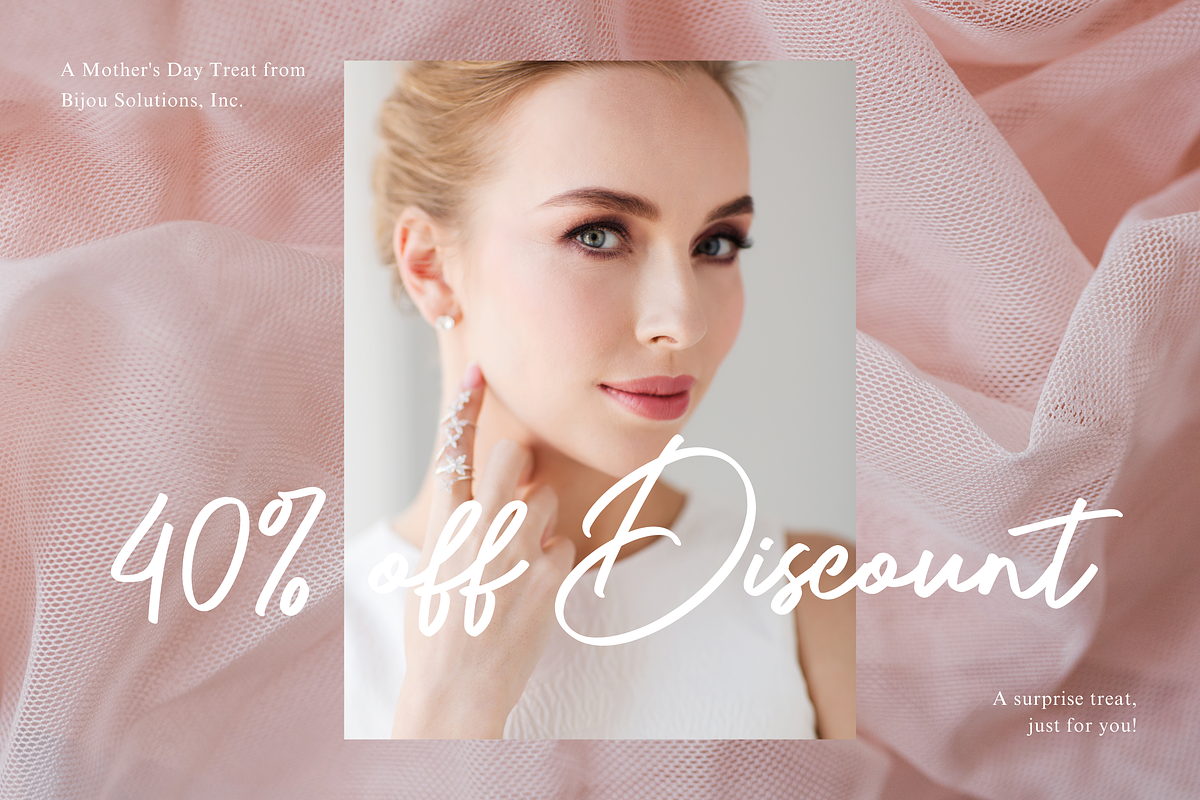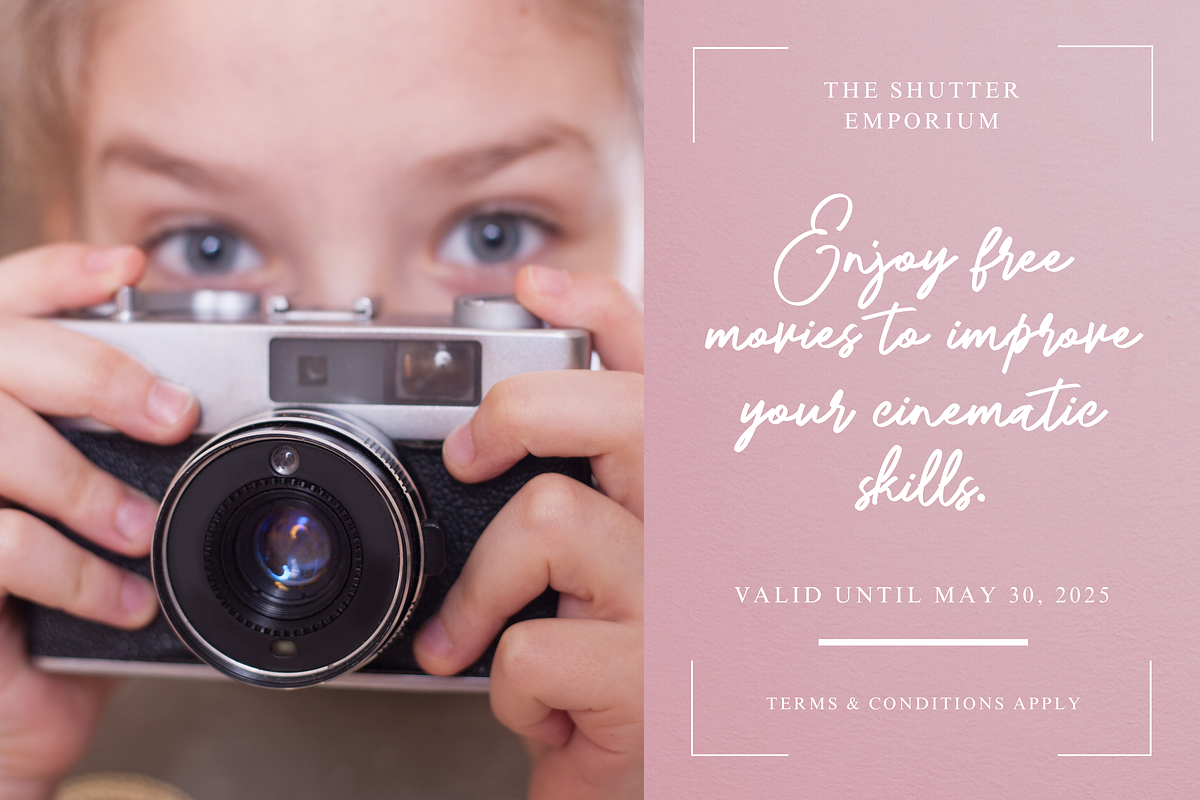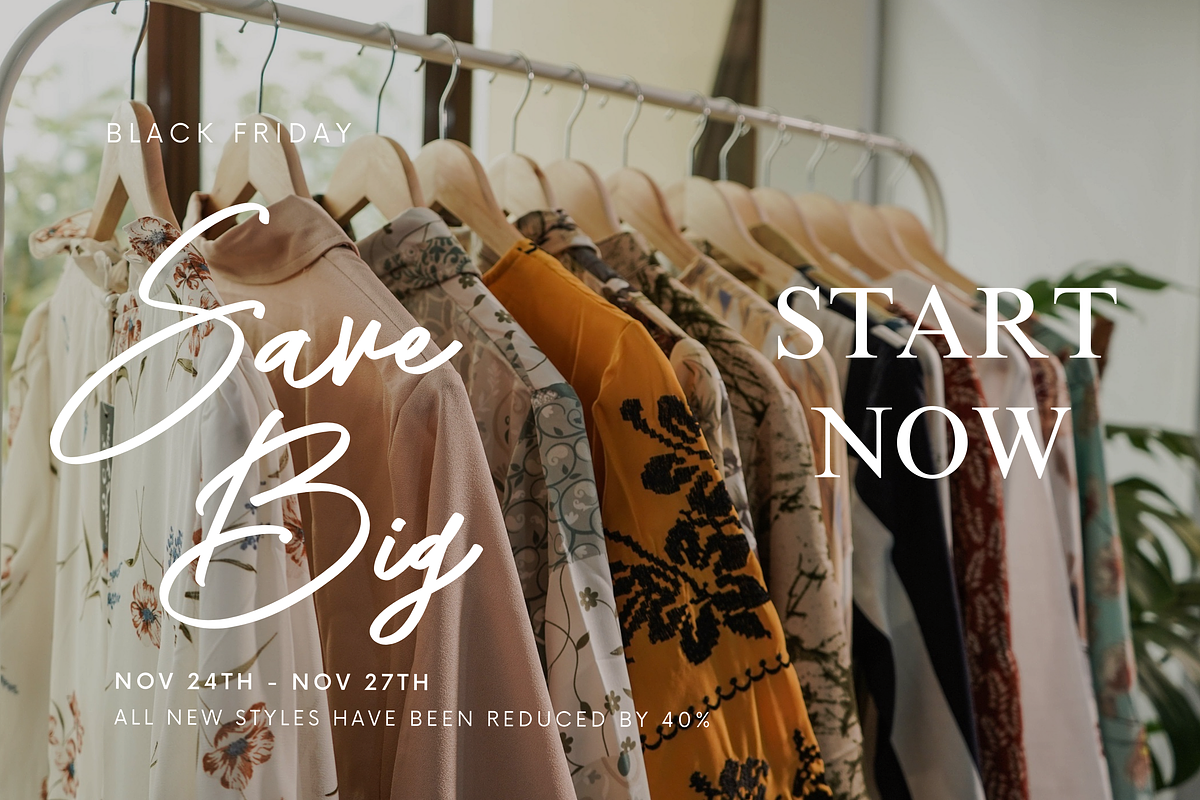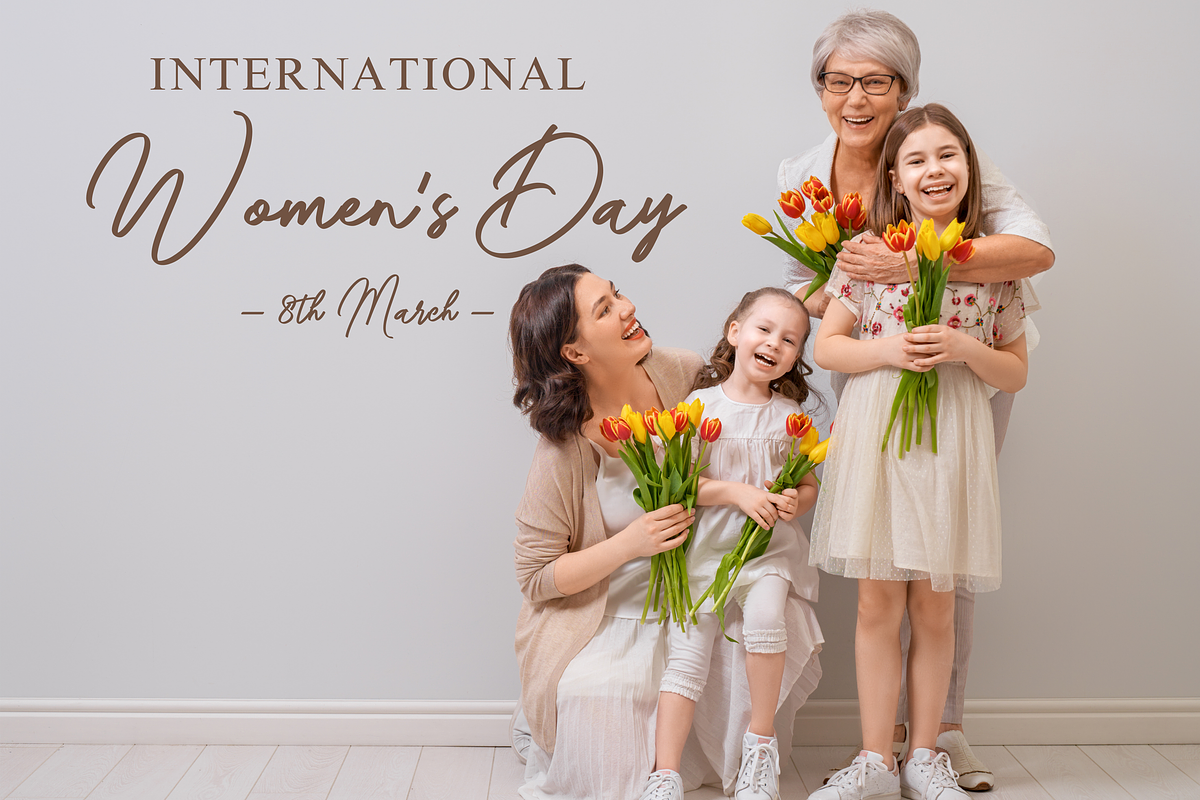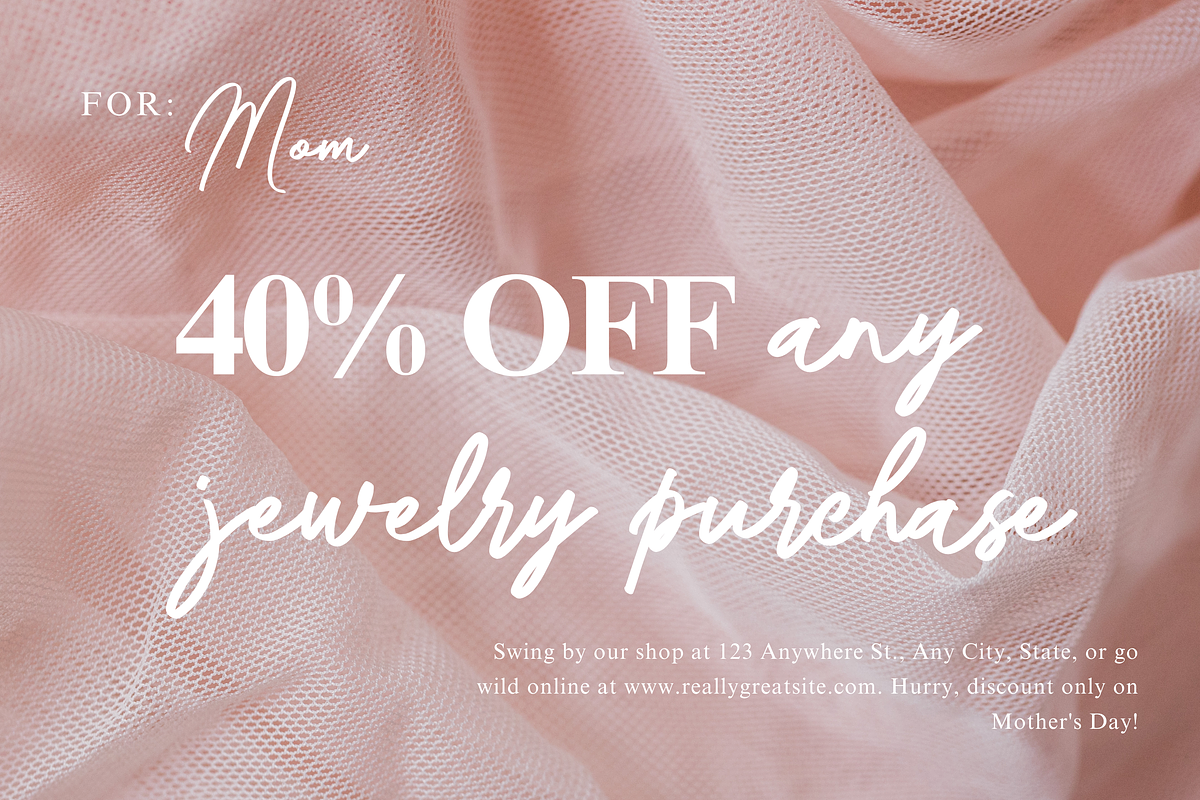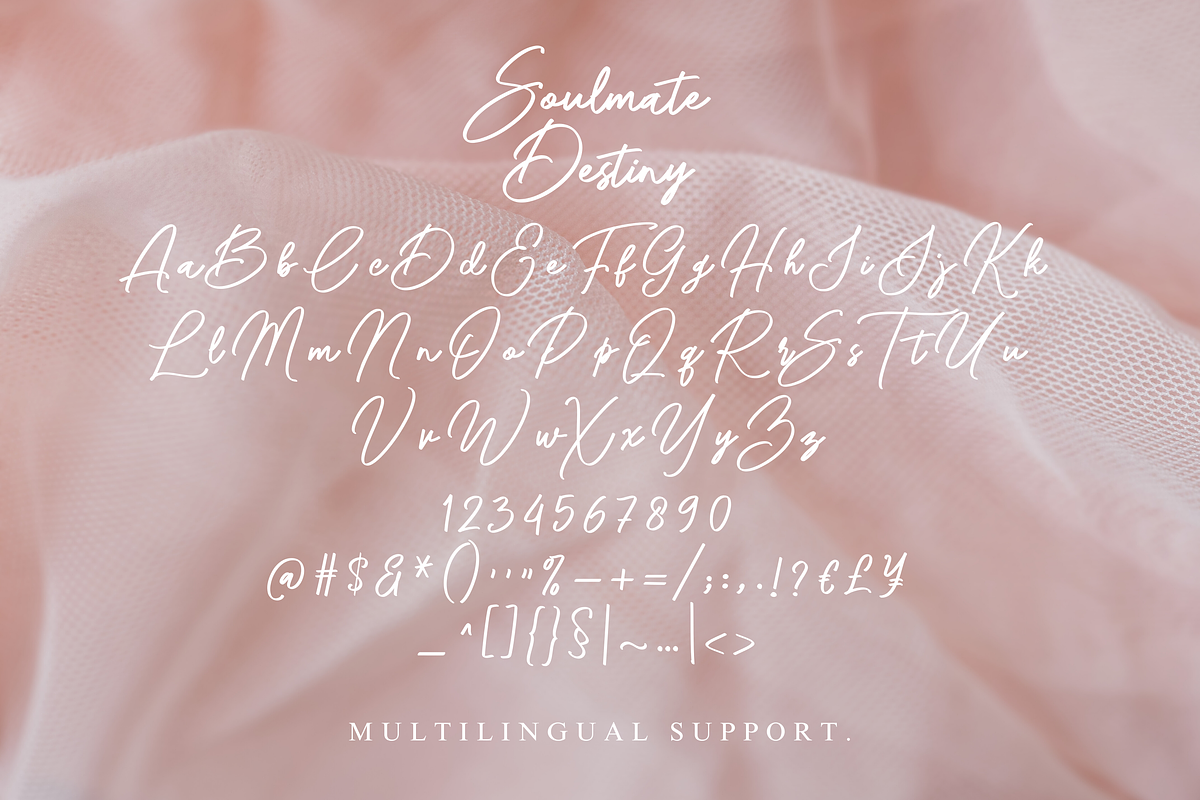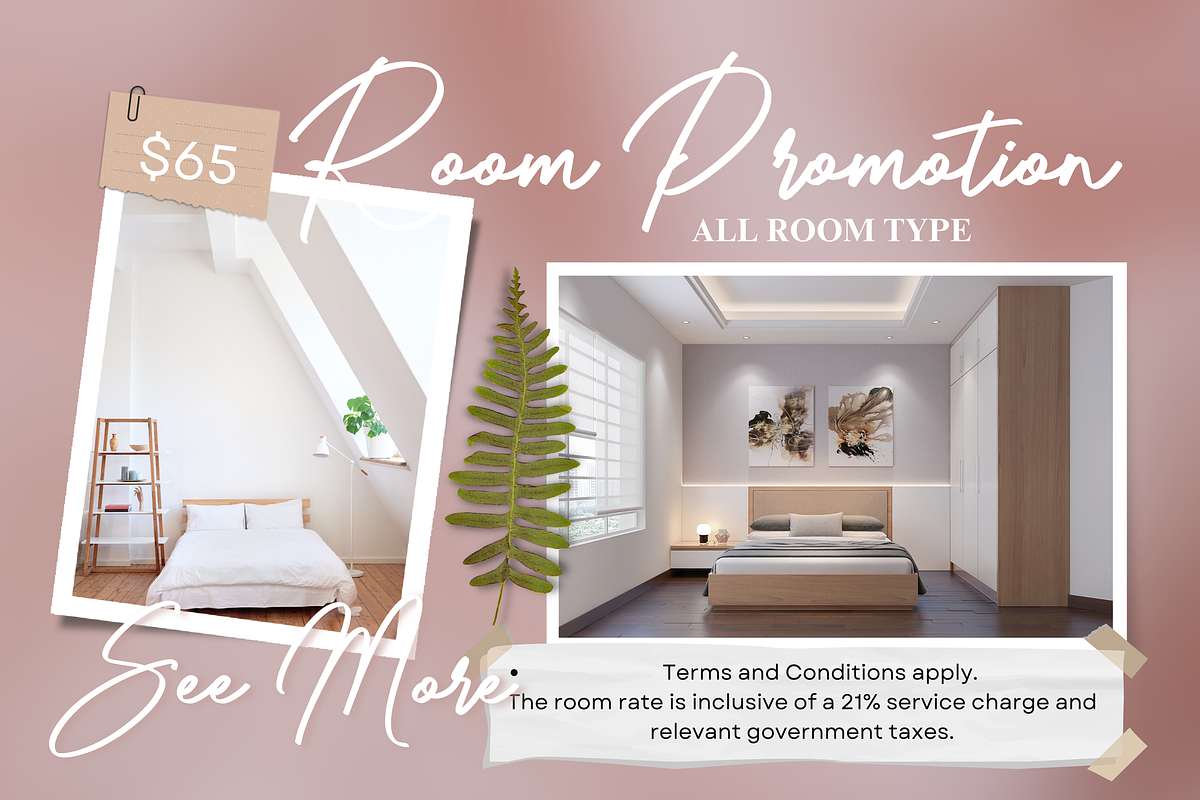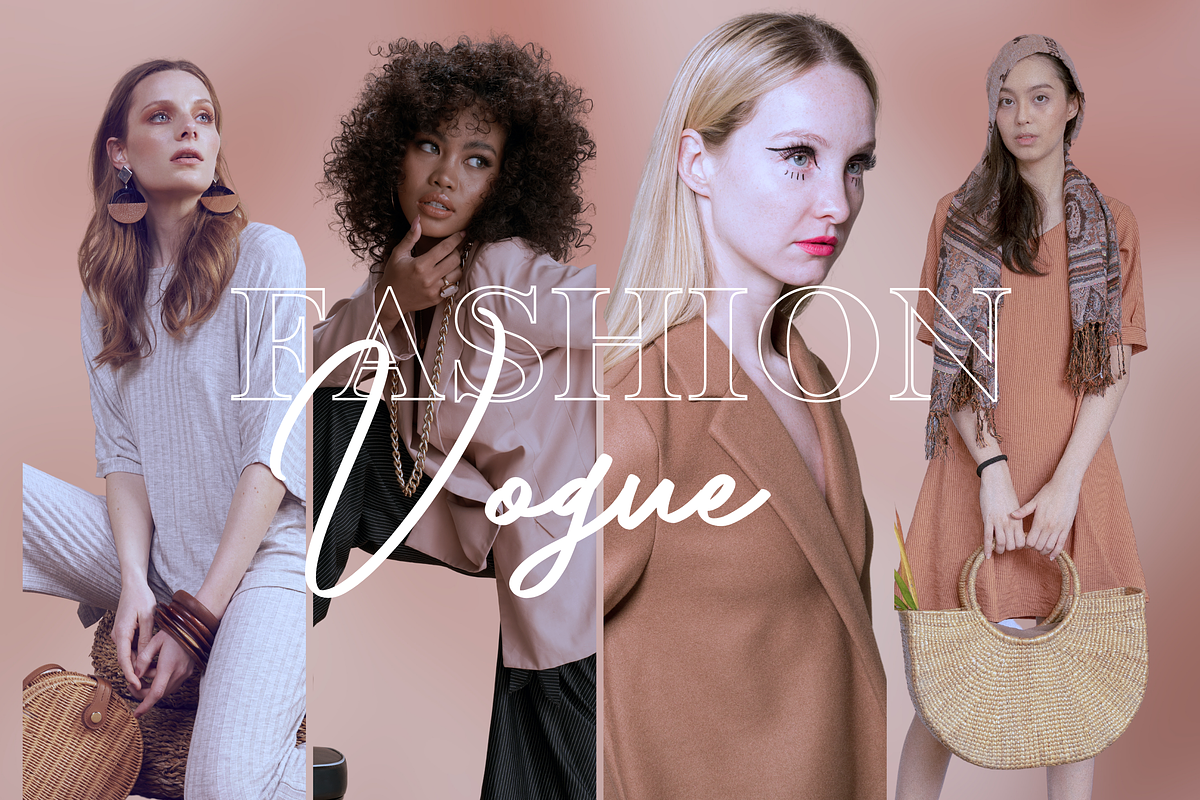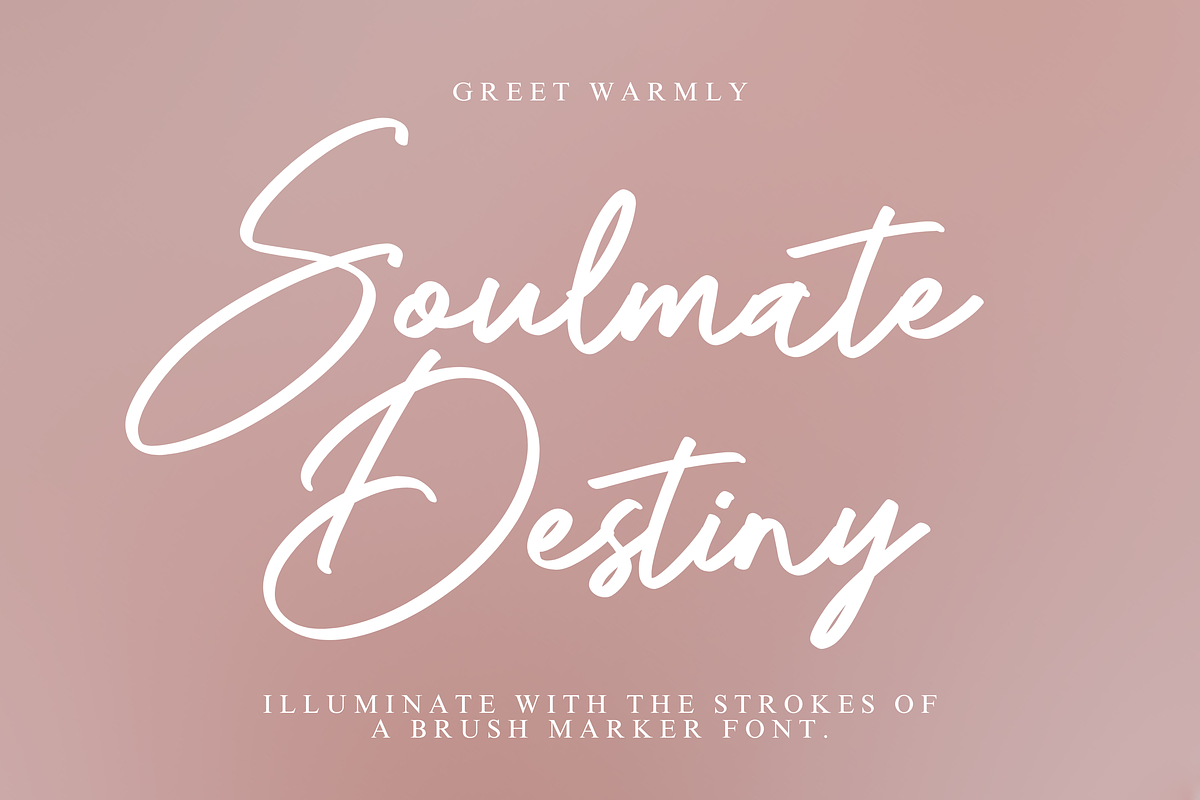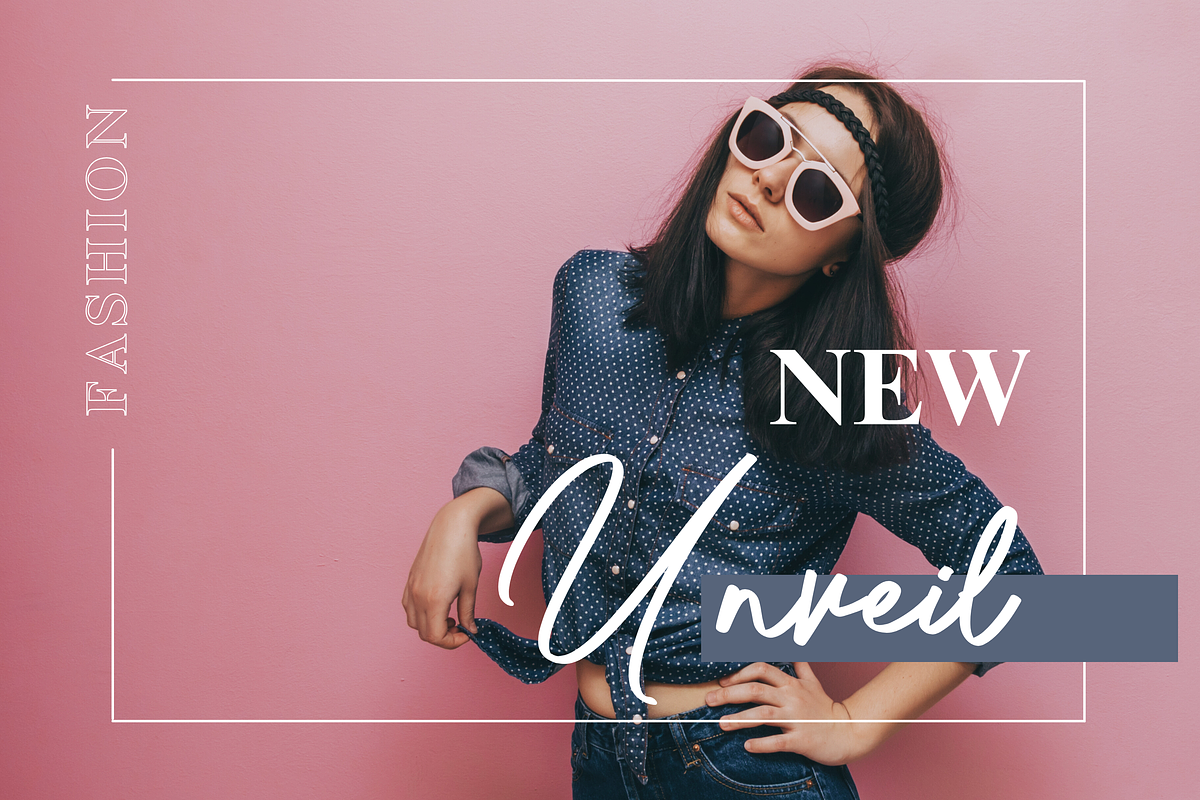
Soulmate Destiny
Introducing: Soulmate Destiny – A Handwritten Expression of Emotion
Illuminate your design with the strokes of a brush marker font. Meet Soulmate Destiny, a handwritten font crafted with heartfelt precision and a deep love for organic lettering. Every stroke tells a story—fluid, personal, and full of soul. Designed to emulate the effortless charm of natural handwriting, Soulmate Destiny is perfect for creatives who crave authenticity in every design.
This font is packed with:
Uppercase & lowercase letters
Elegant ligatures
Whether you're creating wedding invitations, branding for artisan products, Instagram quotes, magazine layouts, greeting cards, or dreamy packaging—Soulmate Destiny brings a touch of sincerity to every project.